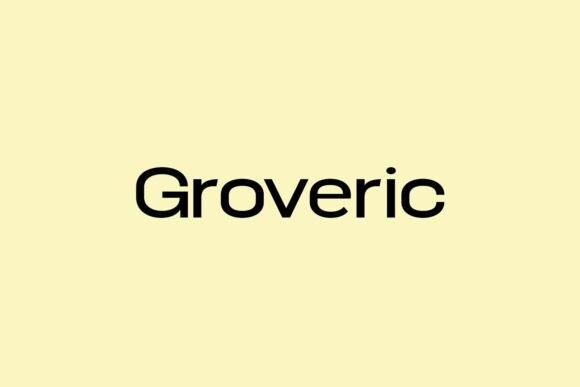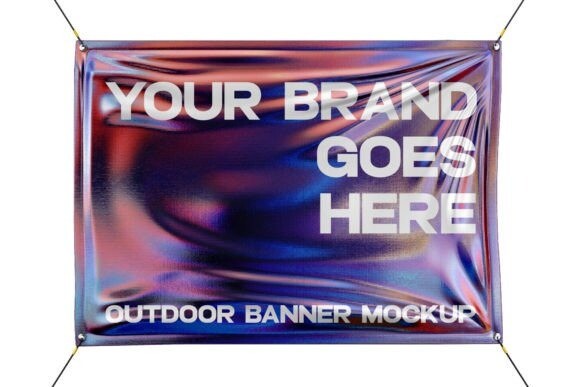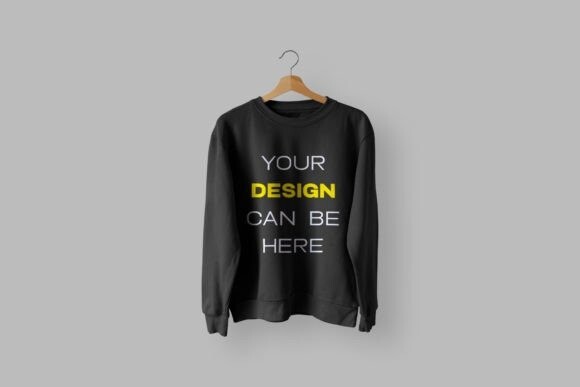
Groveric Font
Groveric is a stunning modern display typeface with clean lines and sharp edges. An extremely versatile font, it is perfect for logos, weddings, invitations, quotes, advertisements, print, magazines, and more!